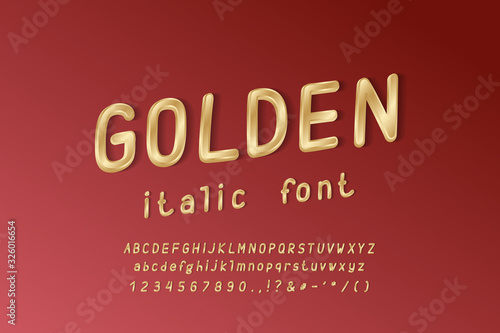
Elegant golden alphabet. Uppercase and lowercase letters, numbers. Thin condensed italic vector font, gold color gradient. Dark red gradient background